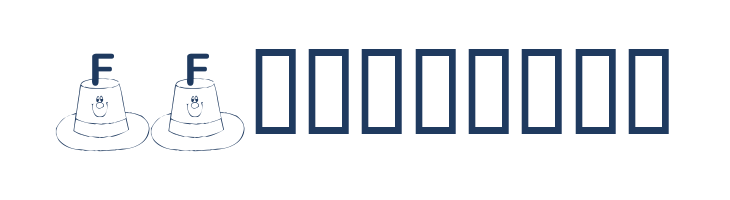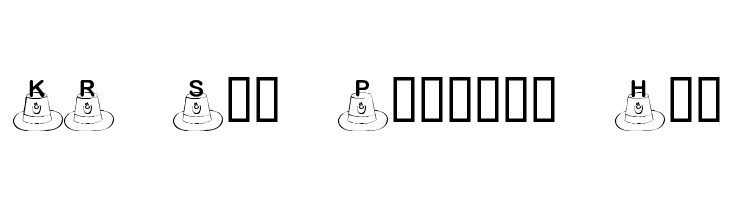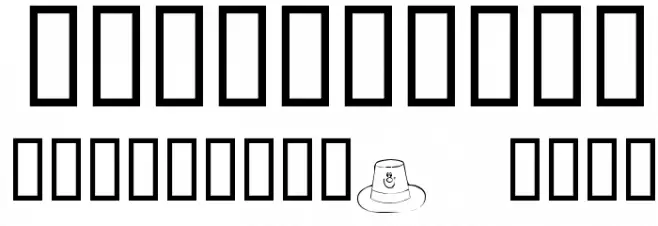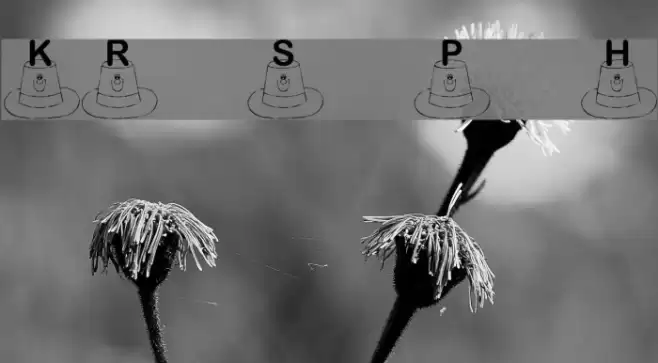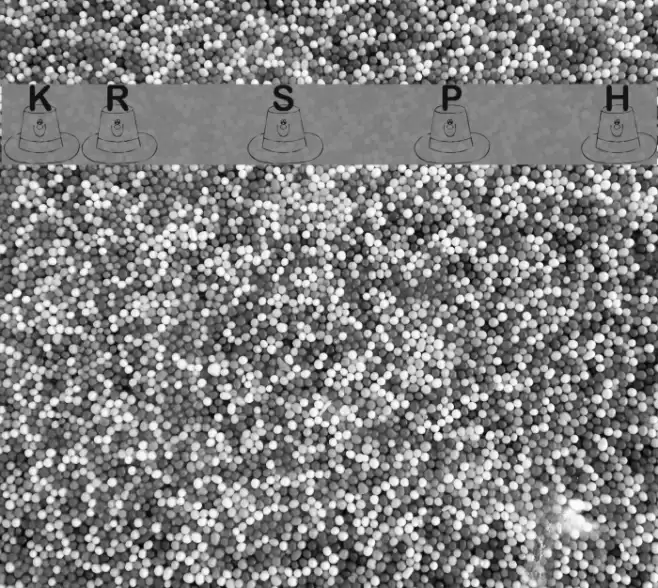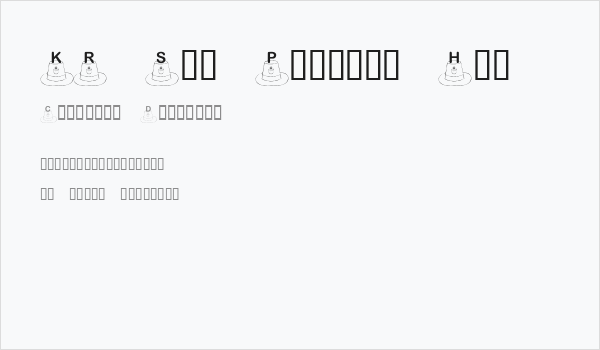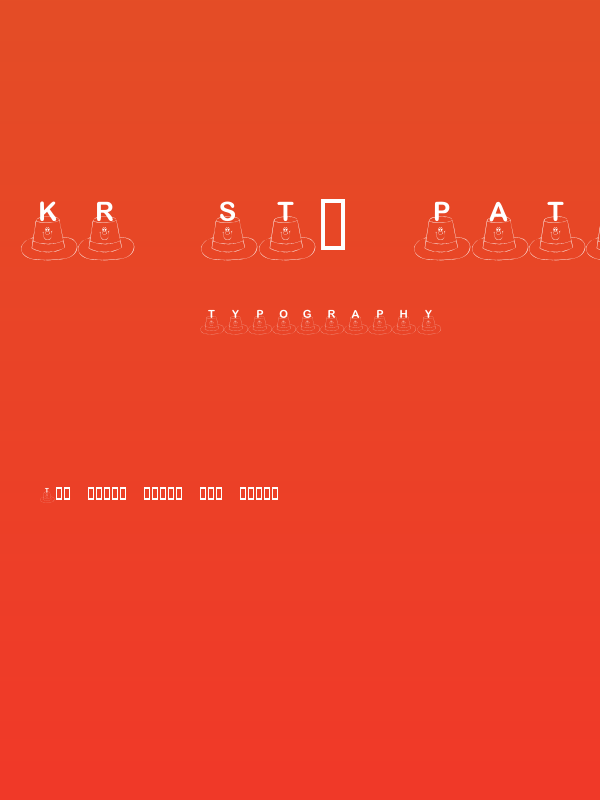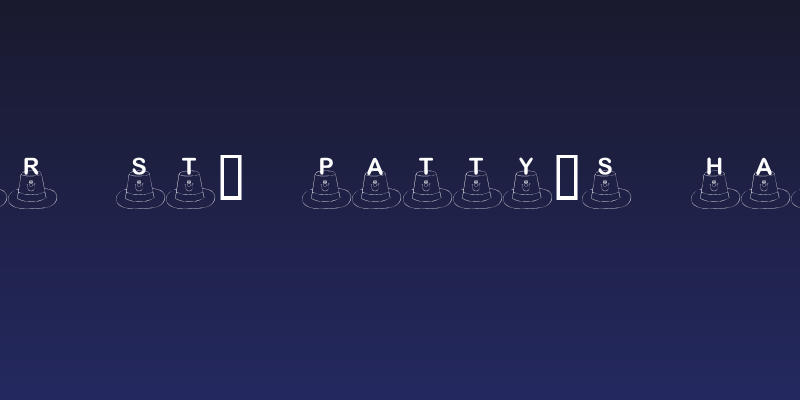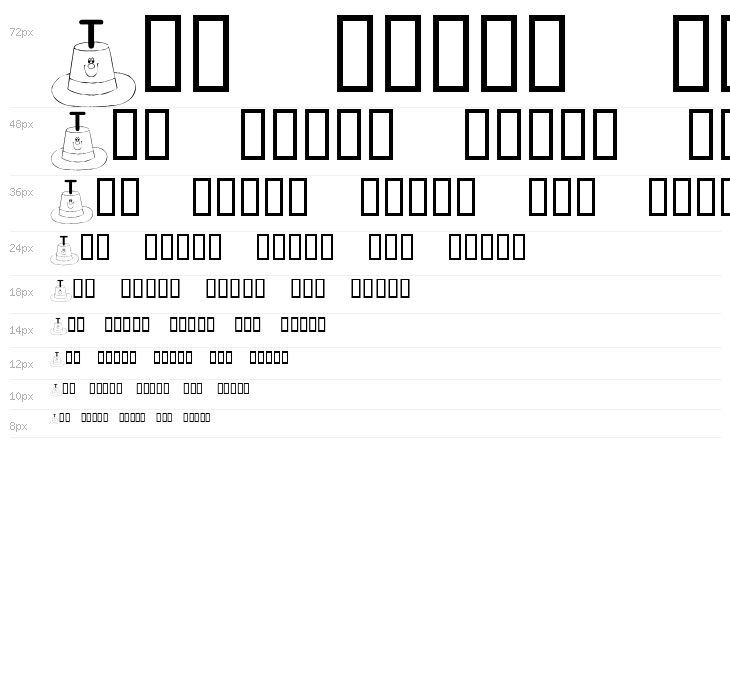
KR St. Patty's Hat Font
KR St. Patty's Hat Description
This playful and whimsical font features each letter perched atop a cartoonish leprechaun hat, adding a festive and lighthearted touch to any design. The uppercase letters are bold and clear, ensuring readability while maintaining a fun aesthetic. The hats are detailed with a simple buckle and a smiling face, enhancing the cheerful theme. This font is perfect for holiday-themed projects, particularly those related to St. Patrick's Day, due to its thematic elements. The unique design makes it stand out, making it suitable for decorative purposes.
| Proposed Projects | Ideal for St. Patrick's Day invitations, festive banners, greeting cards, and themed posters. |